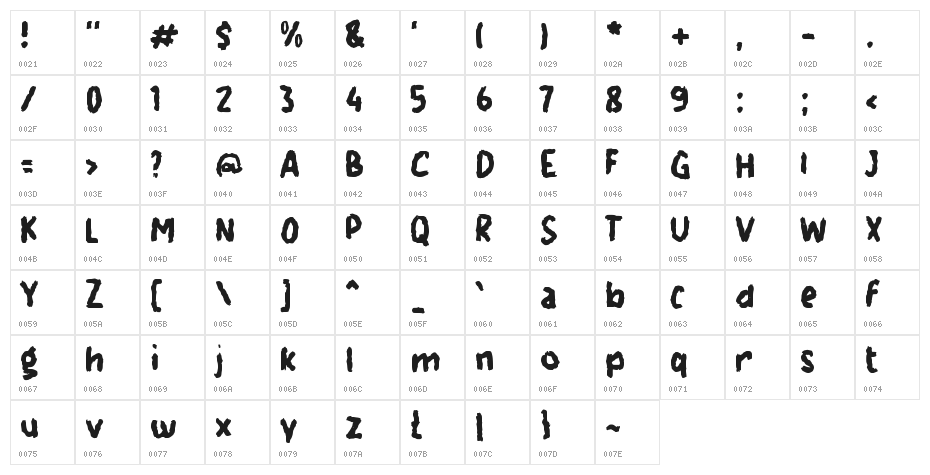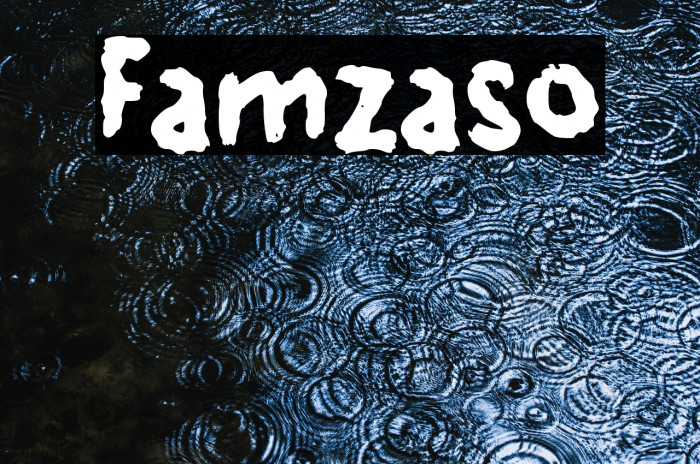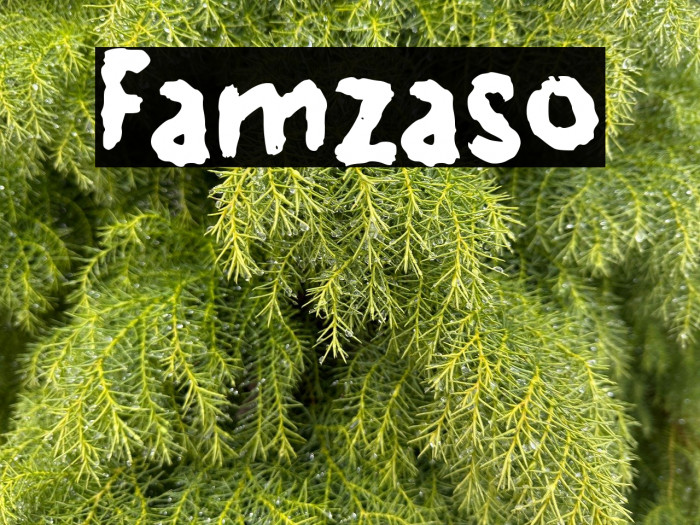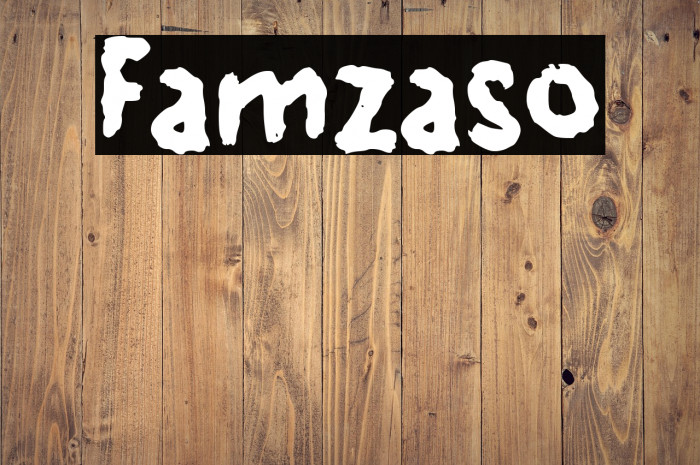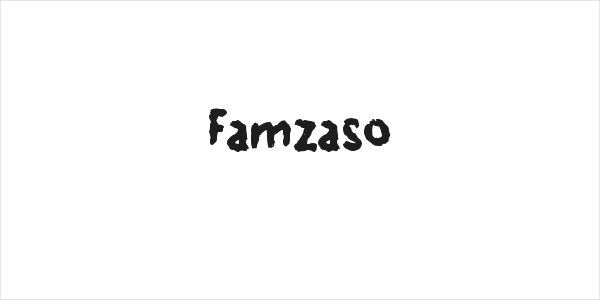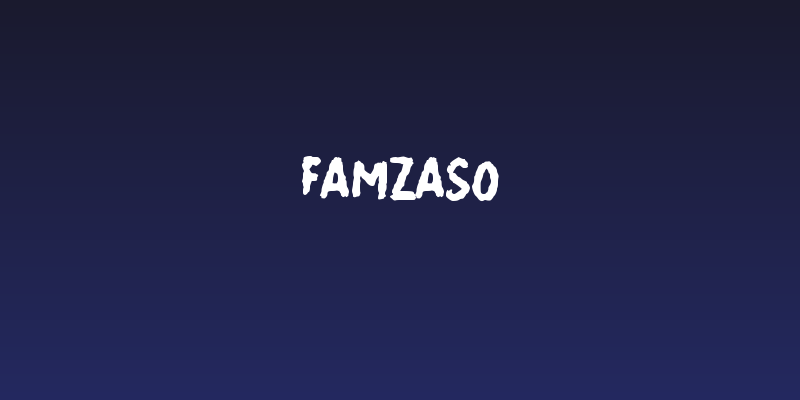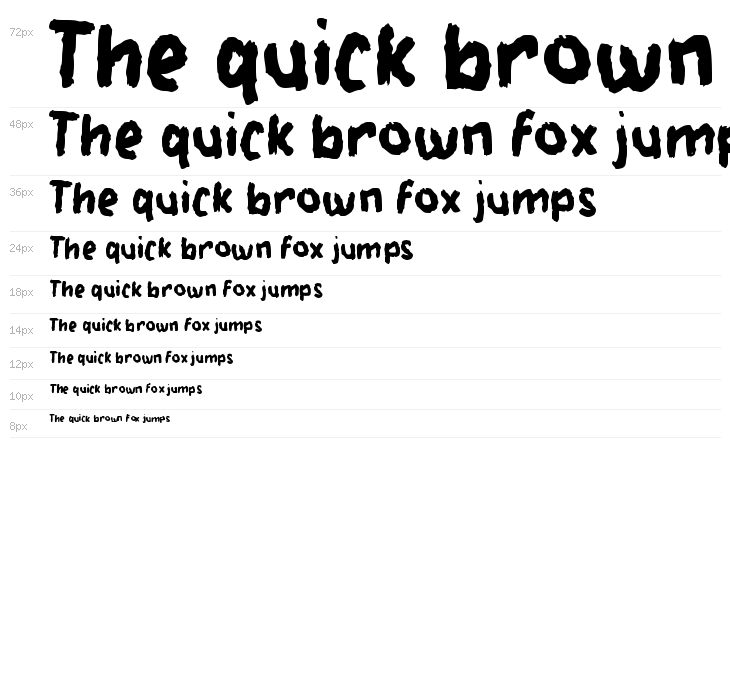
Famzaso Font
Famzaso Description
This font features a bold, hand-drawn style with a playful and artistic flair. The characters are irregular and have a rough, textured appearance, giving them a unique and organic feel. The uppercase and lowercase letters maintain a consistent style, with rounded edges and varying stroke widths that add to the font's dynamic nature. The numbers and special characters follow the same design principles, ensuring a cohesive look across all elements. This font is ideal for projects that require a casual, creative touch.
| Proposed Projects | Ideal for posters, children's books, creative branding, and artistic projects. |